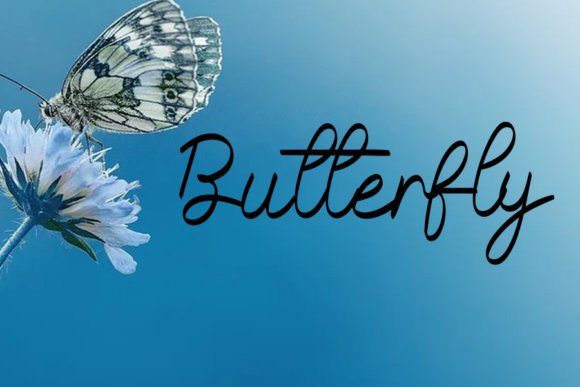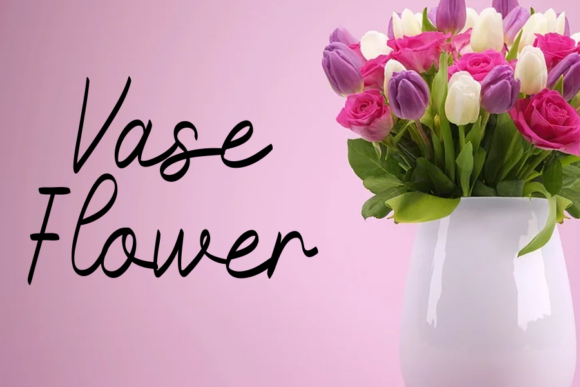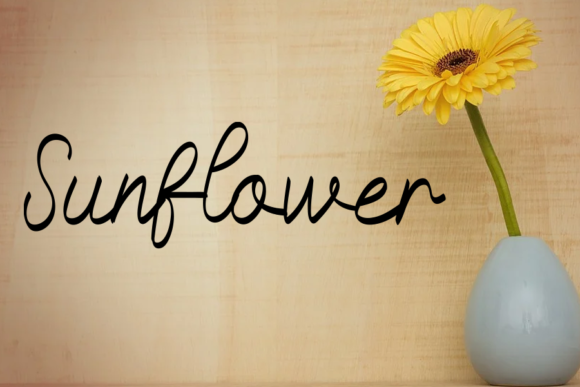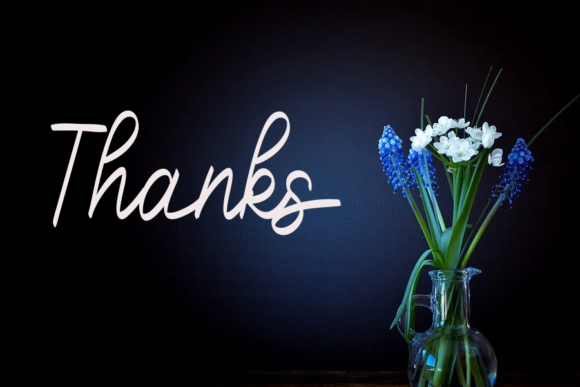
Flower Valentine Font
Flower Valentine is a romantic handwritten font featuring nice characters that give off a poetic flair. Fall in love with its incredibly chic style, and use it for your projects!